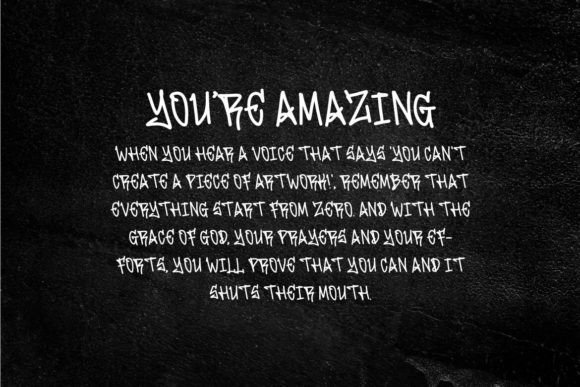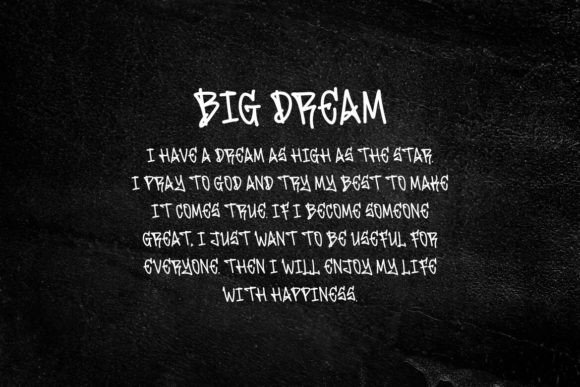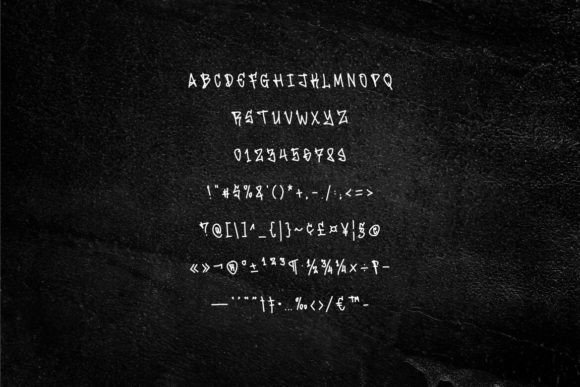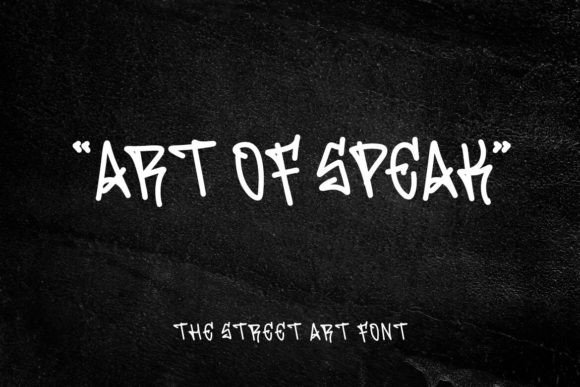
Discover the Urban Flair of Art Of Speak Font: Elevate Your Designs with a Street Art Style
Hello! Are you on the hunt for a font that embodies the vibrant and edgy essence of street art? Look no further! **Art Of Speak** is here to revolutionize your designs with its unique, urban flair. This versatile font can be seamlessly integrated into a wide range of projects, including comic books, posters, school materials, flyers, book titles, advertisements, social media content, logos, and many more.
Unleash Your Creativity with Art Of Speak
Art Of Speak is more than just a font – it’s a statement. Inspired by the dynamic and expressive world of street art, this font is designed to add a bold, eye-catching touch to any design. Whether you’re a designer, artist, or crafter, Art Of Speak offers the perfect blend of style and functionality to bring your ideas to life.
Key Features of Art Of Speak Font
- Street Art Style: Art Of Speak boasts a distinctive, street-art-inspired aesthetic that’s sure to make your designs stand out from the crowd.
- Versatility: From comic books to social media content, Art Of Speak can be used across a wide range of projects and mediums.
- Ease of Use: This font is incredibly easy to use, making it perfect for designers of all skill levels.
- High-Quality Design: Art Of Speak features a high-quality design with crisp, clean lines and a bold, attention-grabbing style.
Endless Design Possibilities with Art Of Speak
The possibilities are endless when it comes to using Art Of Speak in your designs. Here are just a few ideas to get you started:
- Comic Books and Graphic Novels: Add a bold, dynamic touch to your comic book designs with Art Of Speak.
- Posters and Flyers: Create eye-catching posters and flyers that grab attention and leave a lasting impression.
- Social Media Content: Elevate your social media game with Art Of Speak’s street-art-inspired style.
- Logos and Branding: Use Art Of Speak to create unique, memorable logos and branding materials that reflect your brand’s personality.
Why Choose Art Of Speak Font?
With so many fonts on the market, why choose Art Of Speak? Here are just a few reasons why designers and crafters are falling in love with this amazing font:
- Unique Style: Art Of Speak offers a truly unique style that’s sure to set your designs apart.
- Highly Versatile: This font can be used across a wide range of projects and mediums.
- Easy to Use: Art Of Speak is incredibly easy to use, making it perfect for designers of all skill levels.
- Constantly Updated: The Art Of Speak font is regularly updated with new features and improvements.
Get Ready to Elevate Your Designs with Art Of Speak
In conclusion, Art Of Speak is a game-changing font that’s perfect for designers, artists, and crafters looking to add a bold, street-art-inspired touch to their work. With its unique style, versatility, and ease of use, Art Of Speak is sure to become a staple in your design toolkit. So don’t miss out on this amazing opportunity to elevate your designs and bring your ideas to life with Art Of Speak!